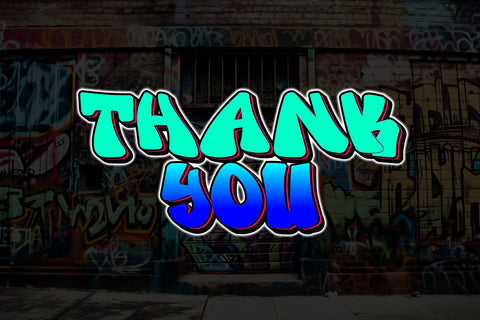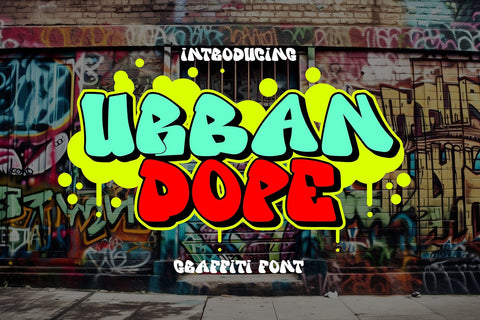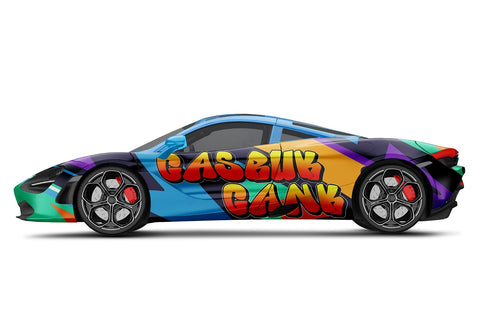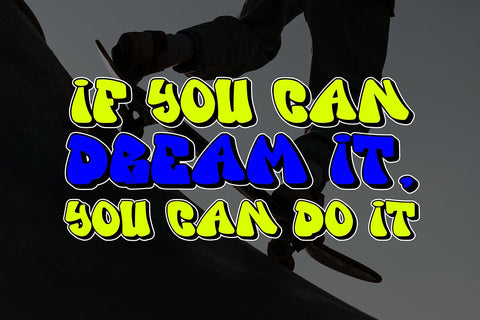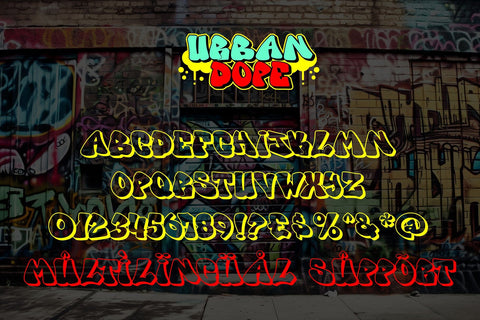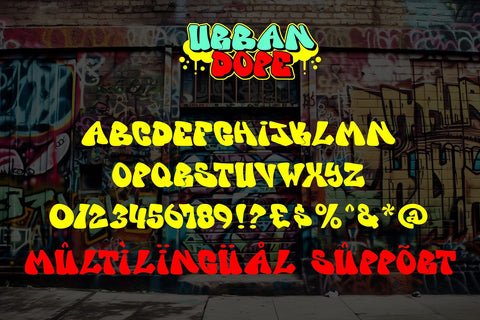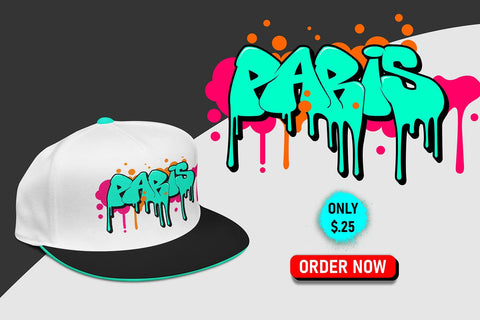
Urban Dope - Amazing 3d Graffiti Font
"Urban Dope" is a graffiti font characterized by its bold letterforms and rounded corners. This font is ideal for a wide range of design projects, including headlines and various other creative endeavors. With its edgy and dynamic style, "Urban Dope" adds an urban flair to your typography, capturing the essence of street culture. The boldness of the characters and the rounded corners create a distinctive and eye-catching look, making this font a standout choice for creating impactful designs that demand attention. Whether you're designing posters, logos, or other visual materials, "Urban Dope" will give your projects a dose of urban energy and attitude.
- Graffiti Characters looks